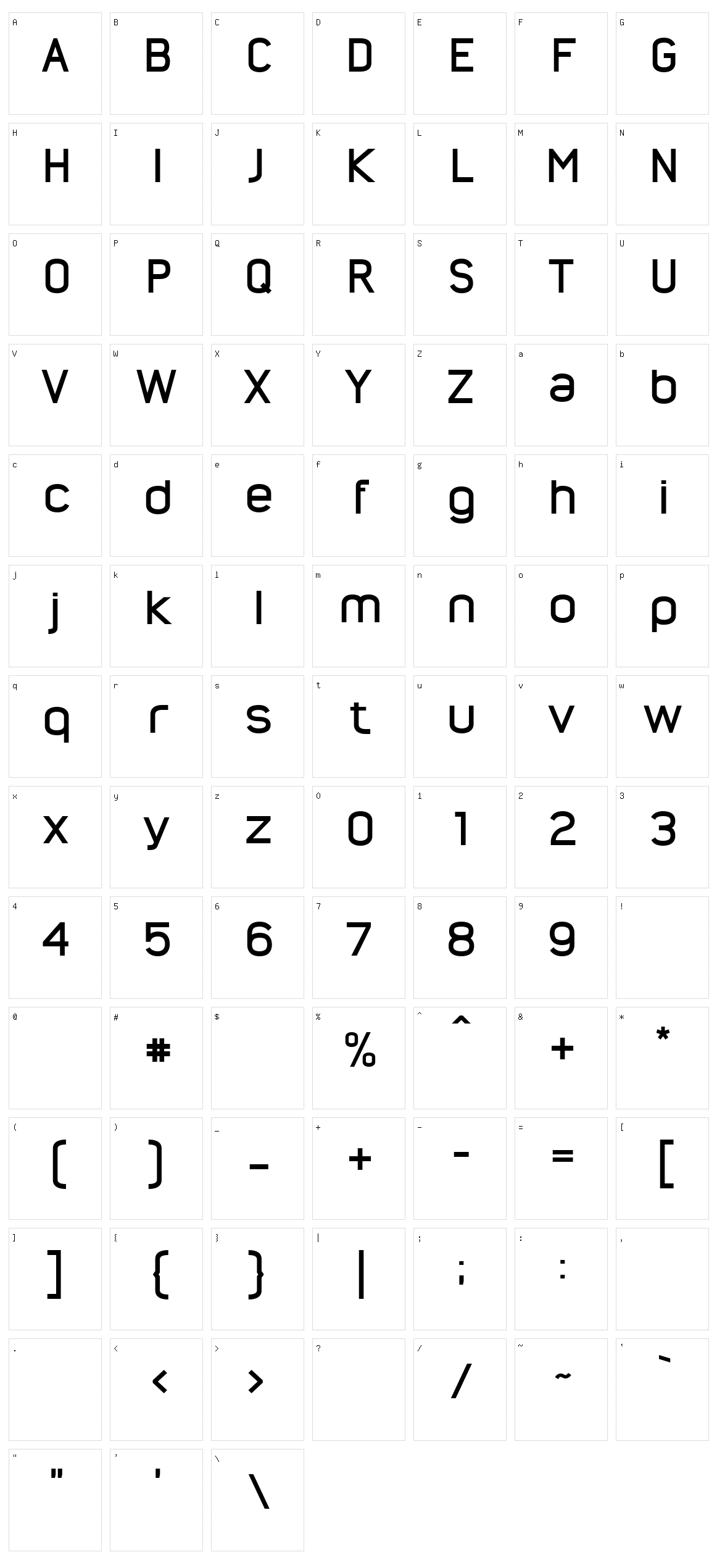
The free font Nordstern is carefully designed by B?ro Sequenz, showcasing a thoughtful balance of creativity and usability and falls under the Sans serif font style. When you download the ZIP file, it contains only 127.15 KB of font files, making it lightweight and quick to download. Please review the license details below to understand permitted usage and distribution rights. If license information is not available, we recommend using this font for personal projects only or contacting the author directly for commercial usage permissions.